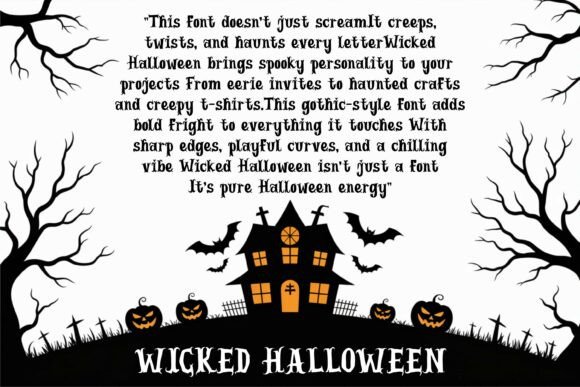
Wicked Halloween Font
Dare to delve into the spine-chilling realm of Wicked Halloween, a delightfully eerie display font crafted to infuse a haunting aura into every Halloween design. Reflecting a gothic charm with its sinister serifs and ominous curves, Wicked Halloween is the go-to choice for ghastly crafts, terrifying signs, trick-or-treat accessories, haunting party invites, blood-curling porch adornments, and horror-themed apparel.
Whether you’re creating crafts in Cricut or digitally designing in Procreate, let Wicked Halloween escalate the fear factor with its bold, goosebumps-inducing style that ensures your works are not just noticed, but memorably frightening. It is rich in and well-equipped with uppercase and lowercase letters, numbers, punctuation, as well as multilingual support.
Ditch the ordinary and embrace the eerie with Wicked Halloween – an faultless tool for sublimation, SVG projects, Halloween printables, and spooky stickers. It transcends the casual norms of font; it is an experience – a wicked, hair-raising thrill ride for those crafting creativities who crave a brush with “font fear”. Simply put, Wicked Halloween isn’t just a font, it’s a crafting escapade into the paranormal.